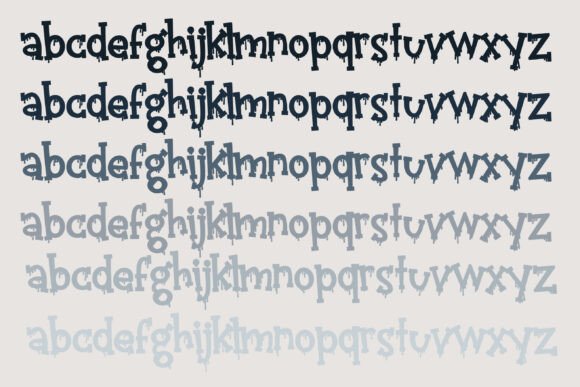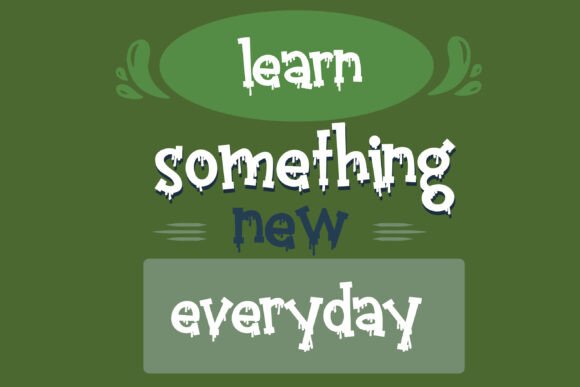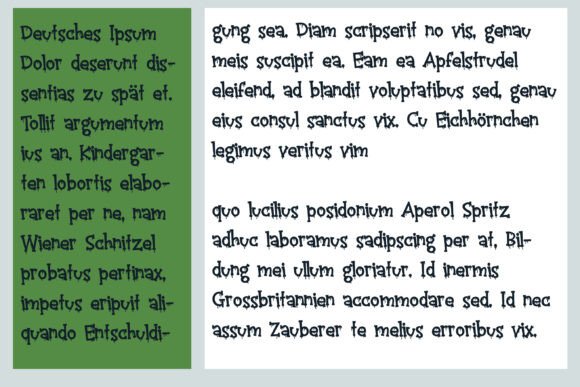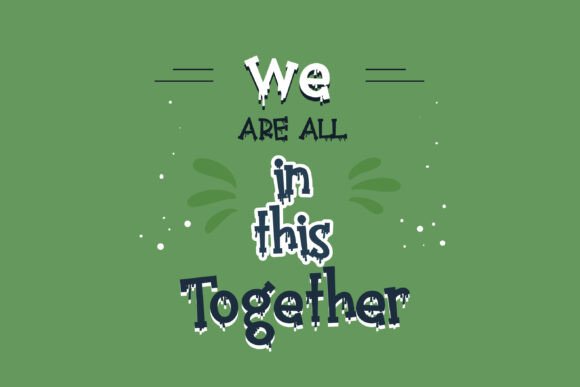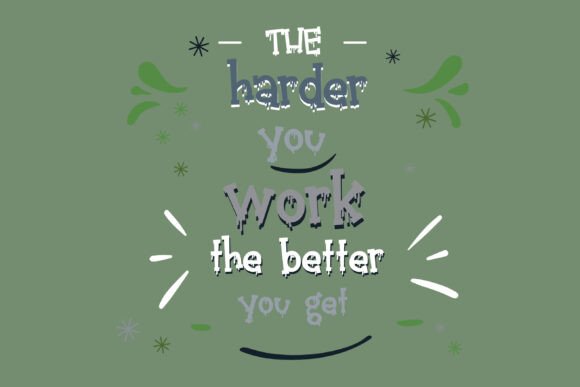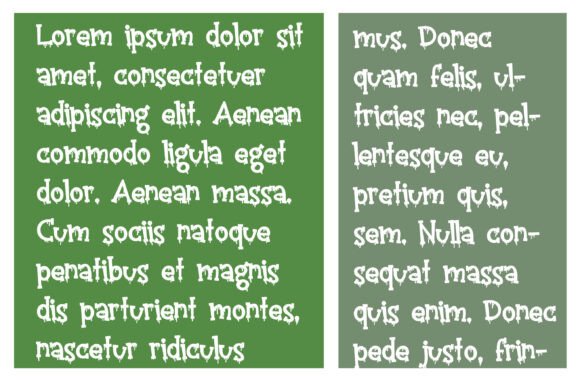
Introduction to Snogitty Snot Font
I still remember the moment I stumbled upon the perfect font for a quirky birthday card. I was browsing through a collection of free fonts online, searching for something that captured the playful essence of my friend’s personality. That’s when I found it – the Snogitty Snot Font. Its whimsical design and unique style immediately caught my attention, and I knew I had to share it with fellow designers.
The Snogitty Snot Font is a hand-crafted serif font that exudes a sense of playfulness and creativity. Its high-quality design makes it a valuable resource for any designer looking to add a touch of whimsy to their projects. Whether you’re working on a creative project that requires a unique touch or simply want to add some personality to your designs, the Snogitty Snot Font is sure to deliver.
With its transparent background and free download option, this font is easily accessible to designers of all levels. Its versatility makes it a great addition to any design resource library, and its unique style ensures that it will stand out from the crowd.
Key Features of Snogitty Snot Font
- High-quality design: The Snogitty Snot Font is a premium design resource suitable for various creative projects, offering a unique and stylish look.
- Unique characteristics: The Snogitty Snot Font features a distinctive and quirky design style, making it an excellent choice for designers looking to add a touch of personality to their creative projects.
Honest Review: Snogitty Snot Font
I recently stumbled upon the Snogitty Snot Font, and I must say it’s been a game-changer for my creative projects. The high quality of the font has elevated my designs to a whole new level.
One of the standout features of this font is its transparent background, which makes it incredibly versatile for use in various design scenarios. I’ve used it for creating social media graphics, posters, and even a few branding projects.
Here are some of the things that work well with the Snogitty Snot Font:
- ✨ Highly customizable: The font comes with a range of weights and styles, making it easy to match it with any design theme.
- ✨ Unique aesthetic: The font has a distinct, quirky feel to it that’s perfect for adding some personality to your designs.
- ⚠️ Limited availability: The font is only available in a few weights, which can make it tricky to use in situations where you need a specific font size or style.
- ⚠️ Not ideal for body text: While the font is great for headlines and titles, it’s not the best choice for body text due to its irregular shape and limited legibility.
Overall, I’m thoroughly impressed with the Snogitty Snot Font, and I’d highly recommend it to anyone looking for a unique and high-quality design resource.
How to Use Snogitty Snot Font
The Snogitty Snot Font is a unique and creative design resource, perfect for adding a touch of personality to your projects. With its high-quality design and transparent background, this font is ideal for use in a variety of applications.
To get the most out of the Snogitty Snot Font, try experimenting with different font sizes and colors. This font is particularly effective when used in bold, eye-catching ways.
The Snogitty Snot Font is perfect for use in a variety of creative projects, including social media graphics, blog posts, and marketing materials. Its unique design and high-quality appearance make it an ideal choice for designers looking to add a touch of personality to their work.